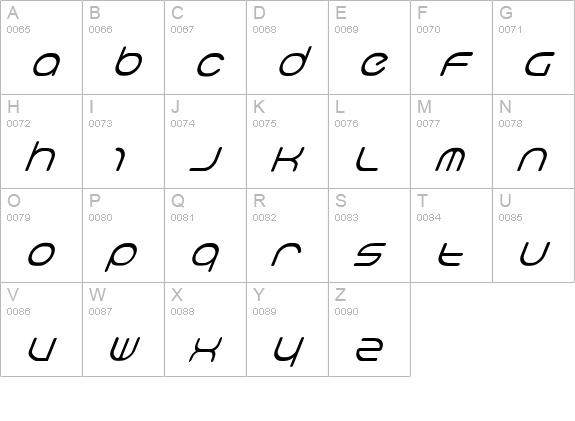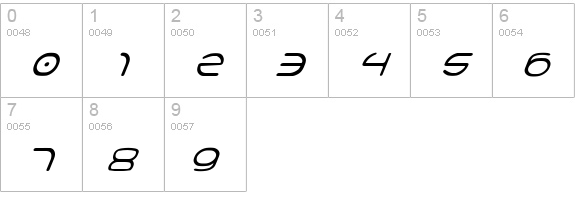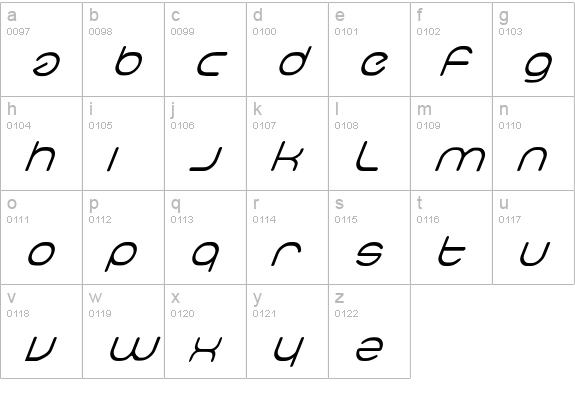
neo-geo italic Font Details
neo-geo italic is a distinctive, italic variant in the neo typeface family \xE2\x80\x94 well suited to design and typography projects.
Neo-Geo Italic font is a sleek and modern typeface that exudes a sense of sophistication and style. With its sharp angles and clean lines, this font is perfect for conveying a sense of professionalism and elegance in any design project. What sets Neo-Geo Italic font apart is its unique blend of classic and contemporary design elements, making it versatile and suitable for a wide range of applications. Whether you're working on a branding project, a website design, or a printed piece, this font will elevate your work to the next level. And the best part? Neo-Geo Italic font is completely free to download at FontsMarket.com! Take advantage of this opportunity to enhance your designs with a premium font that will make a lasting impression. Download Neo-Geo Italic font today and unleash your creativity like never before.